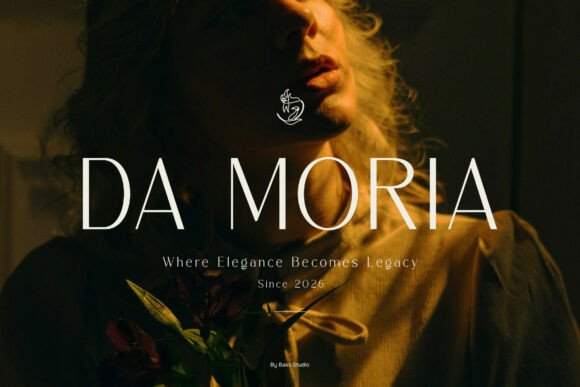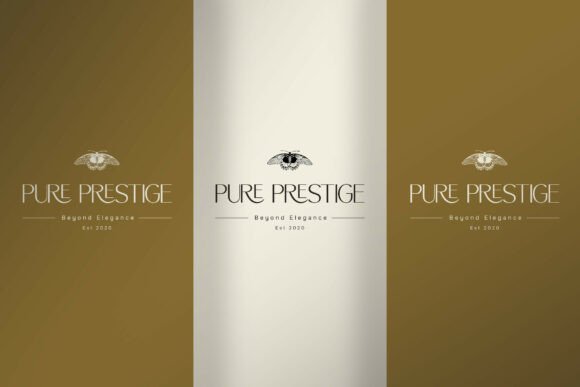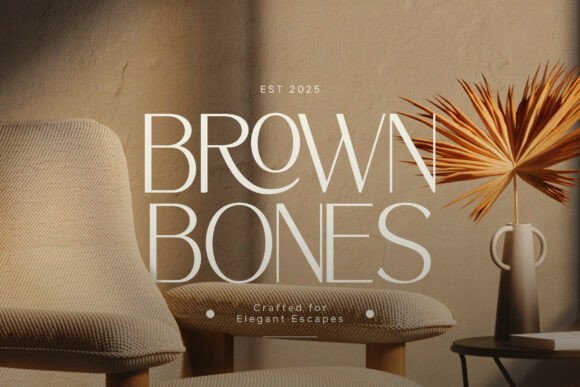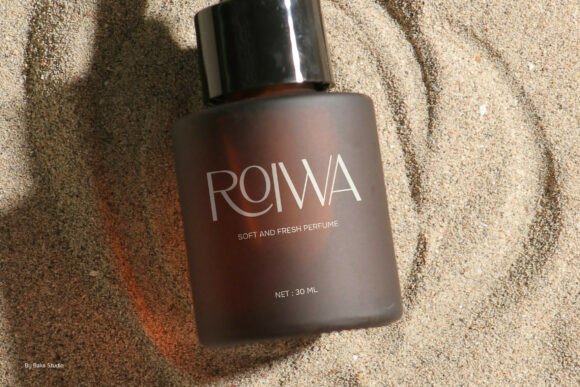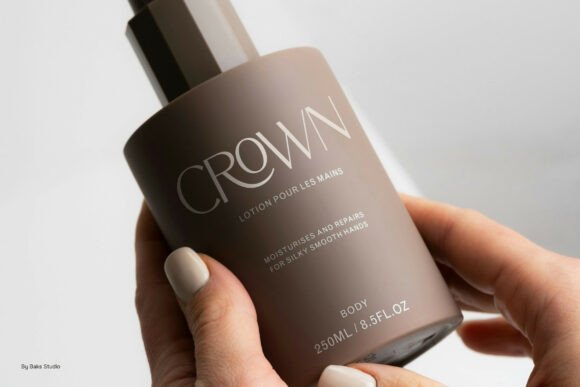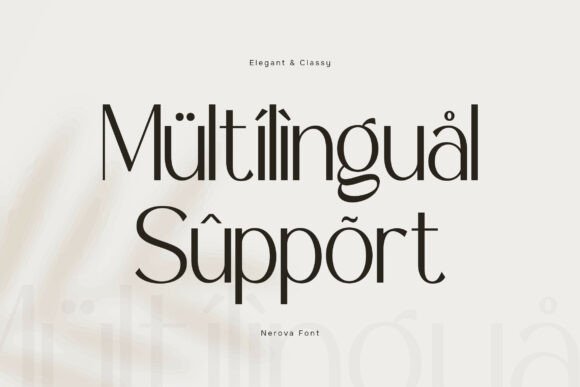
Introduction to Nerova Font
Have you ever stumbled upon a design project where every element, from the typography to the color palette, comes together in perfect harmony? That’s exactly what happens when you use the Nerova Font in your creative project. This beautifully crafted elegant sans serif typeface is a game-changer for designers who value sophistication and clarity.
As a valuable design resource, Nerova Font delivers a clean yet distinctive look that instantly elevates any visual project. Its balanced proportions, smooth curves, and refined spacing create a sense of luxury and exclusivity, making it perfect for high-end branding and professional design work. With the Nerova Font, you can achieve a high-quality visual identity that stands out from the crowd.
Whether you’re working on a logo, luxury branding, or editorial design, Nerova Font is the perfect choice. Plus, with its transparent background, you can easily integrate it into your design without any hassle. So, what are you waiting for? Download the Nerova Font and experience the difference it can make in your next creative project.
Nerova Font
- Includes 5 font styles with varying weights and sizes, from Extra Light to Bold
- Features a clean and modern design, making it perfect for digital and print applications
Honest Review: Nerova Font
Here’s what works well about the Nerova Font: ✨ It has a sleek and modern design that’s perfect for a variety of creative projects. The font is highly customizable, making it easy to adjust the transparency and background to suit your needs. A transparent background option is a great feature, especially when working with complex designs.
The font also has a wide range of weights and styles, making it suitable for both headlines and body text. The characters are well-designed and easy to read, even at smaller font sizes.
Overall, I’m impressed with the Nerova Font’s quality and design. While it may not be the perfect solution for every project, it’s a great resource to have in your toolkit.
The Nerova Font is ideal for:
- Infographic creation